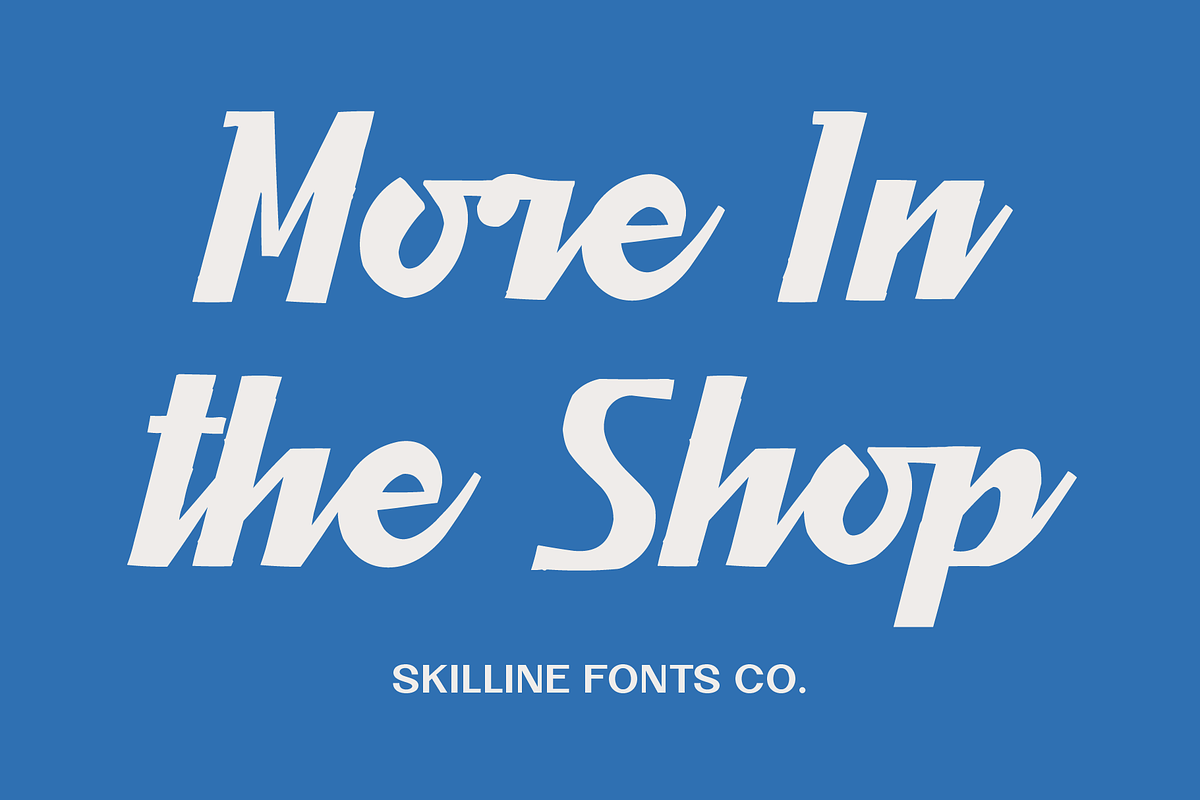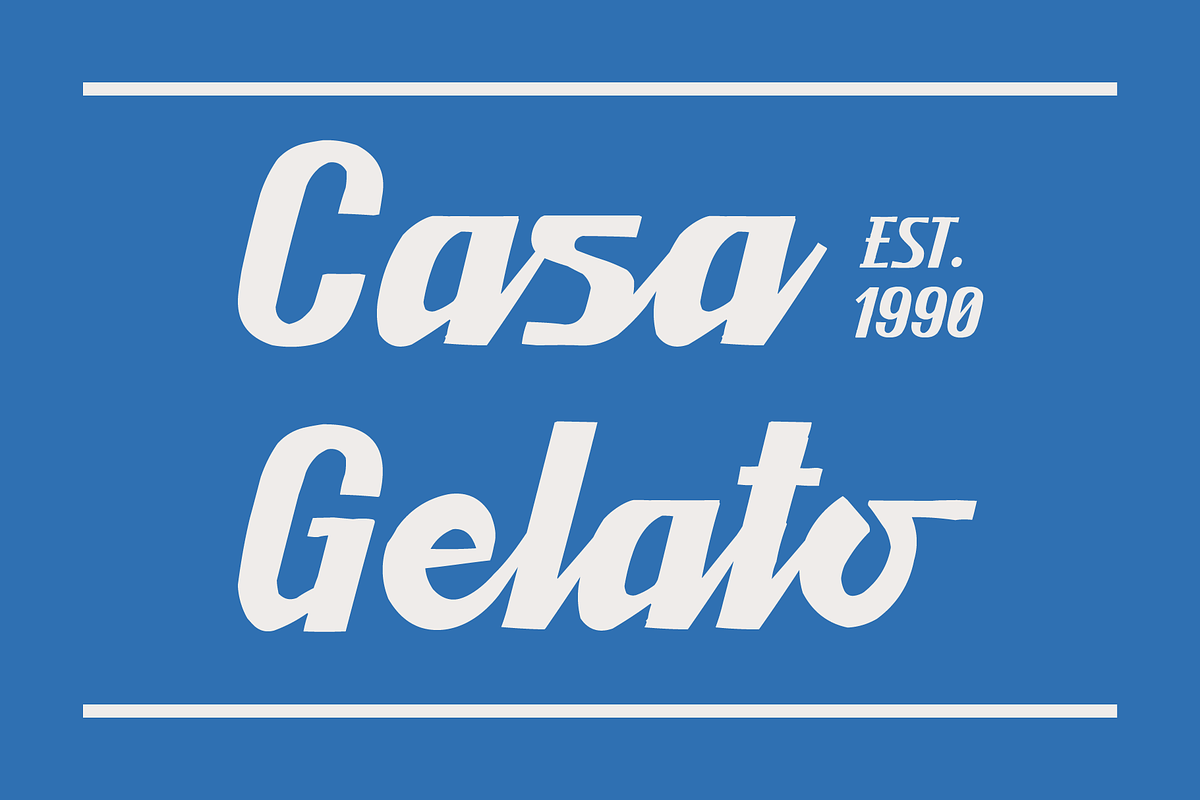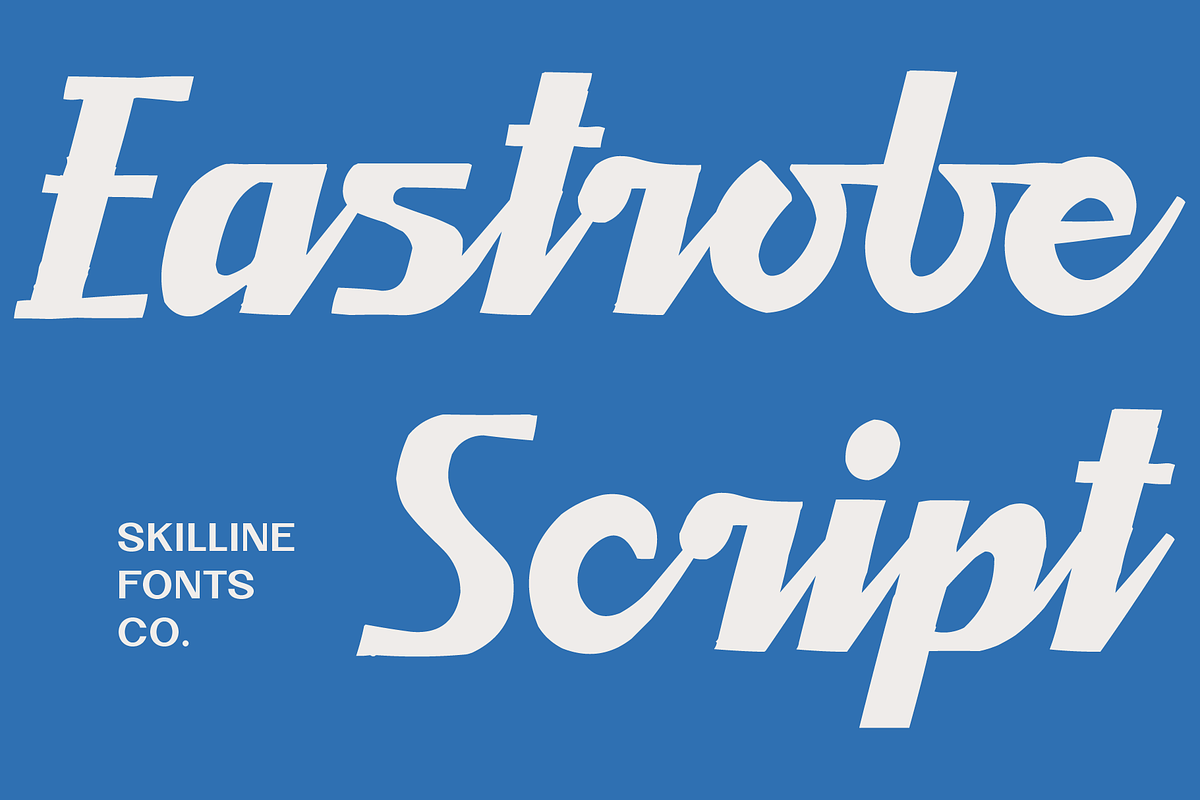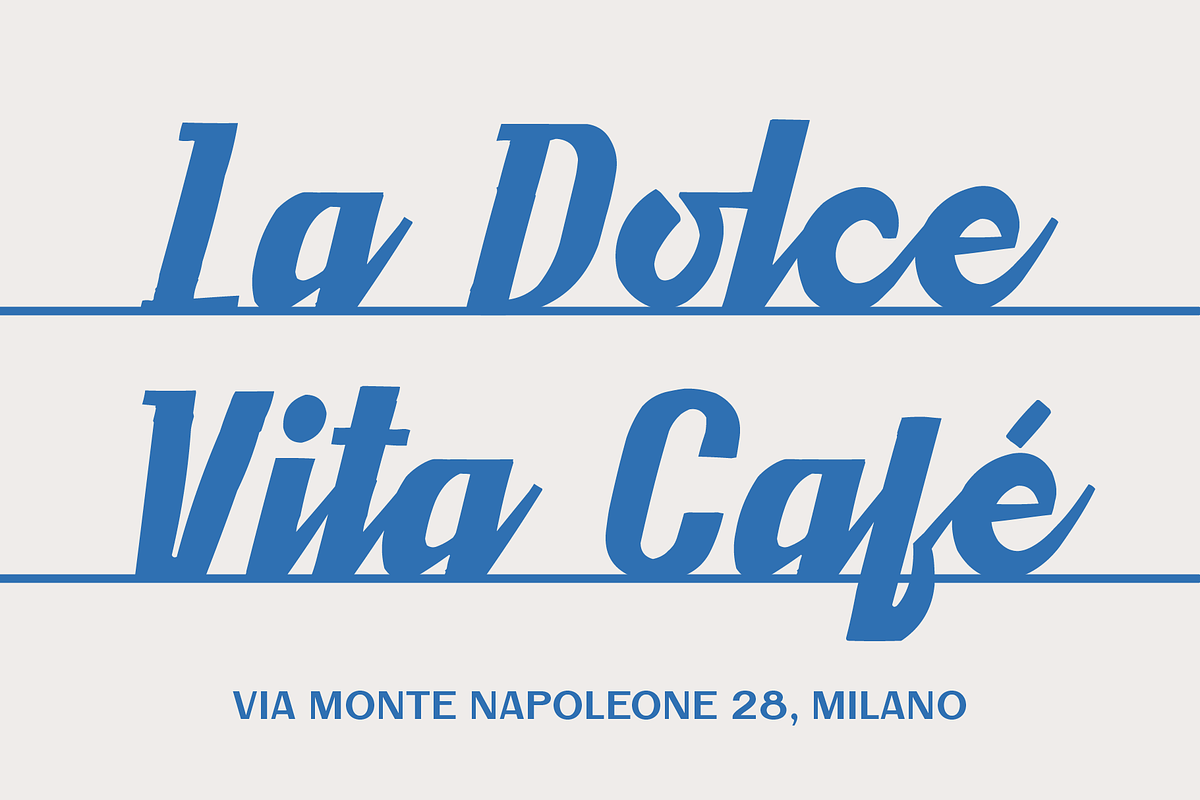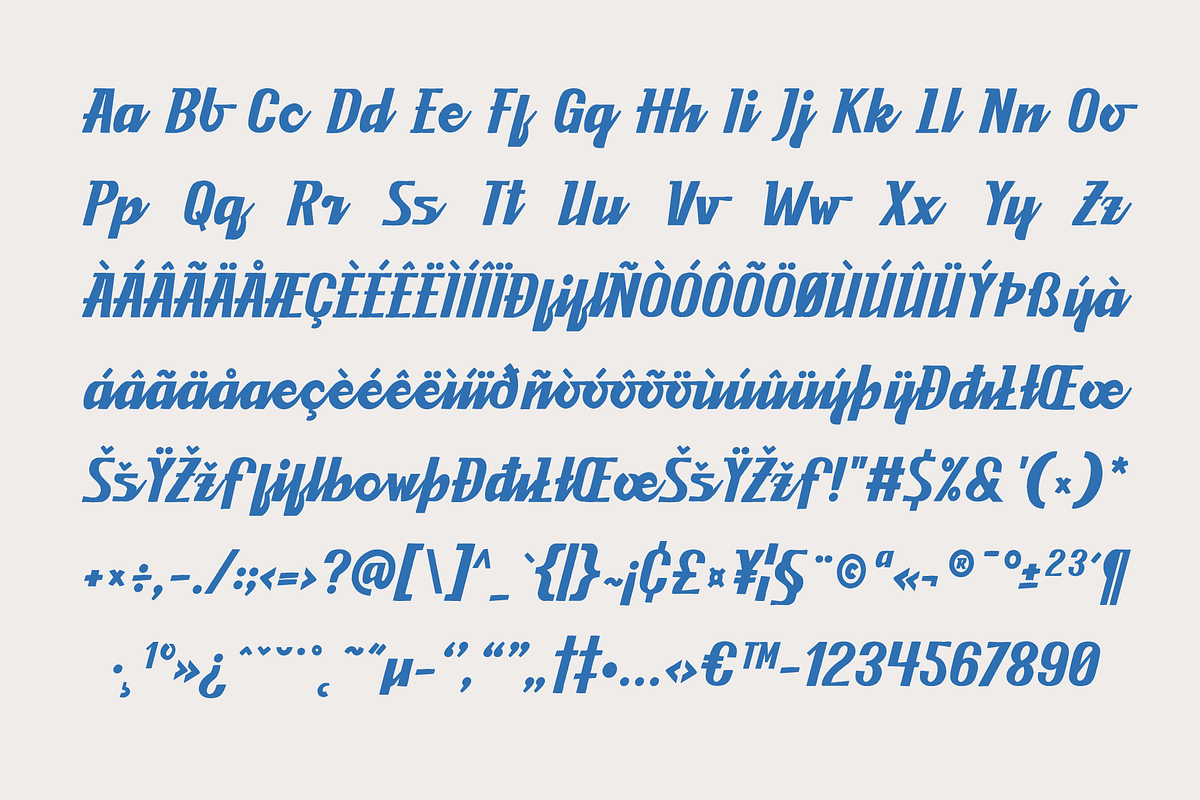
SFC Eastrobe
Eastrobe is a handcrafted vintage script typeface inspired by classic sign painting, retro advertising, and traditional lettering. Bold flowing strokes, expressive curves, and subtly textured edges create an authentic handcrafted appearance while maintaining balanced proportions and smooth visual rhythm.
Its confident italic construction and carefully refined details deliver a warm, nostalgic personality with strong readability. Complete with multilingual support, extended Latin characters, numerals, and punctuation, Eastrobe blends timeless craftsmanship with a clean and distinctive finish.
* Handcrafted Vintage Script
* Textured Rough Edges
* Bold Nostalgic
* Numerals & Punctuation
* Multi Language